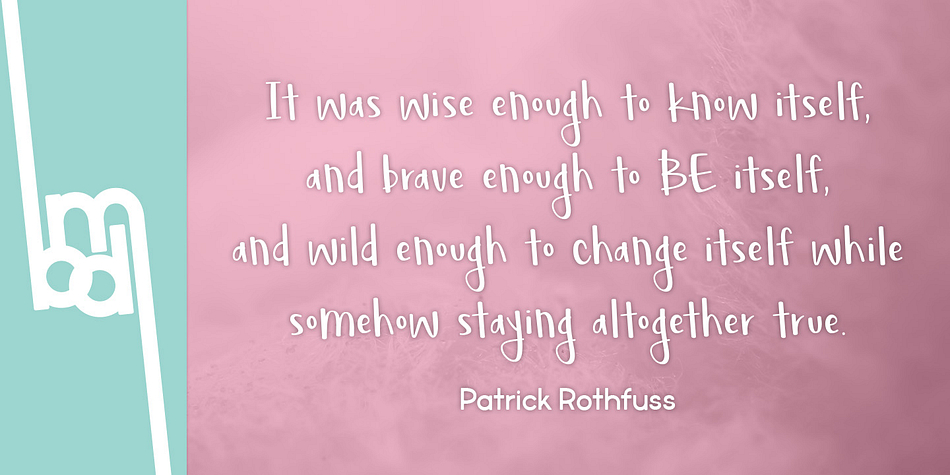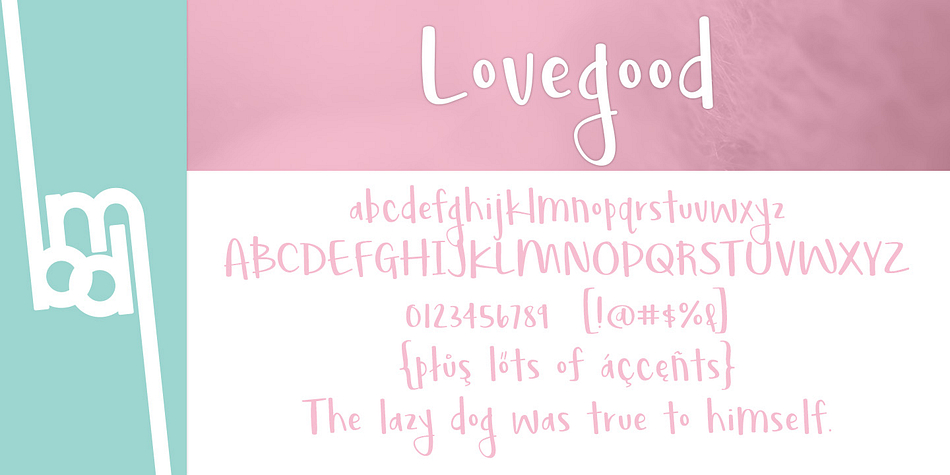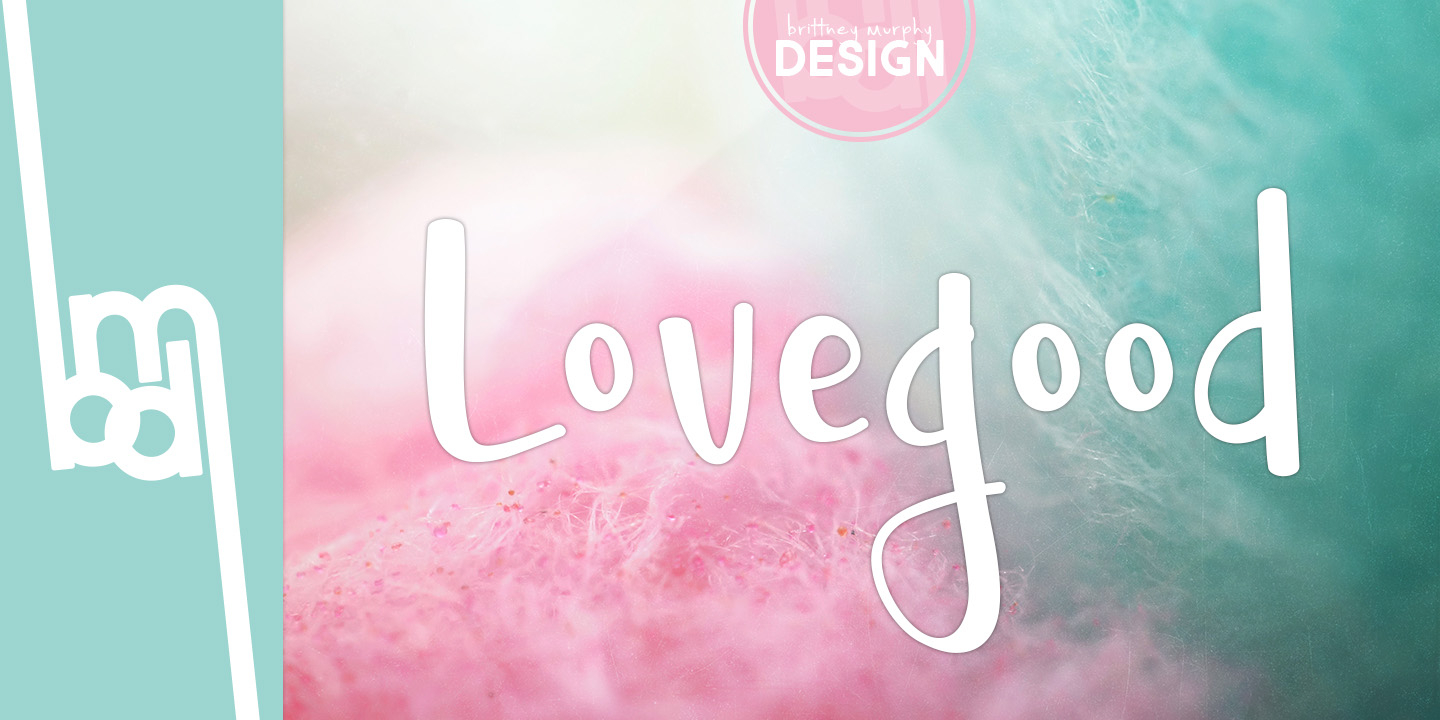
Lovegood is a hand drawn font published by Brittney Murphy Design.
Inspired by and named for one of my favorite book characters, Lovegood is a slightly whimsical handwritten font.
Contains 350 characters, including extended Latin.